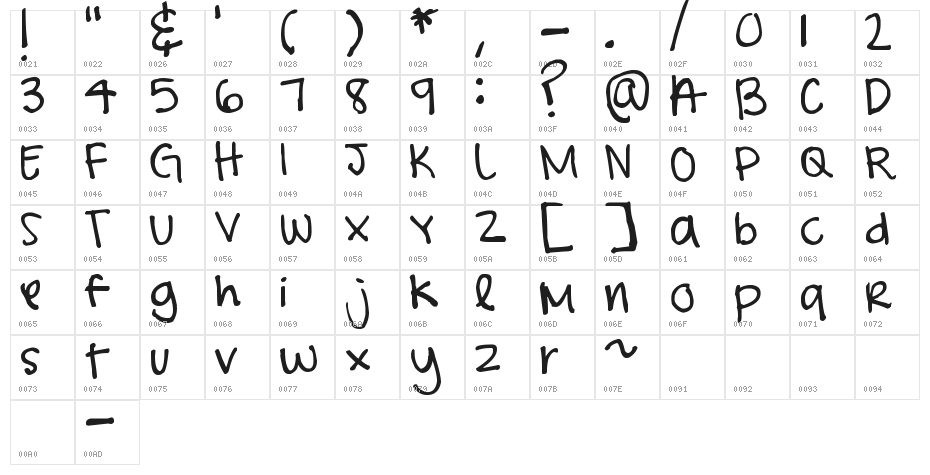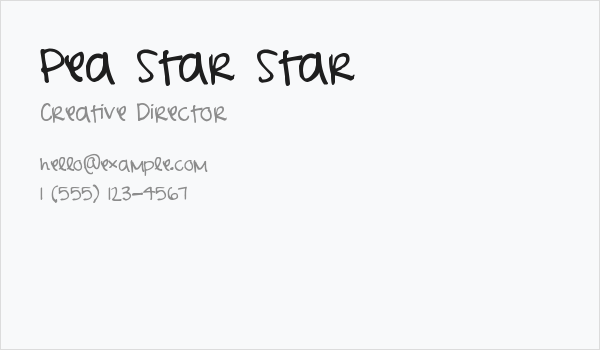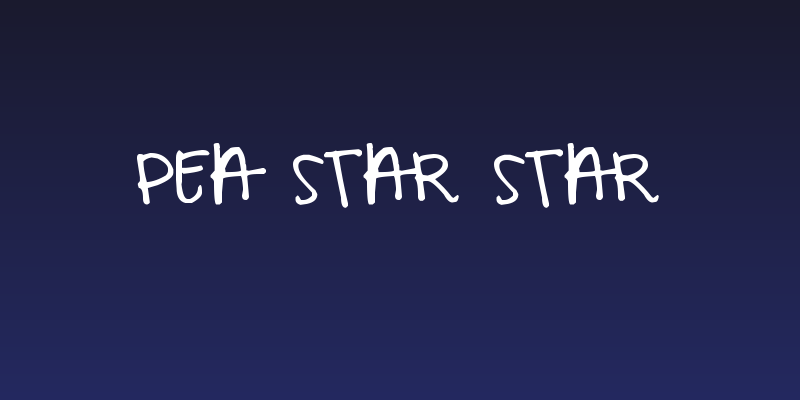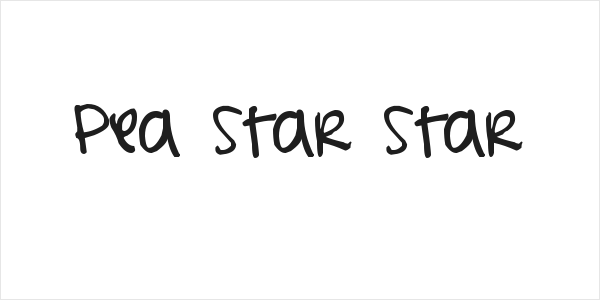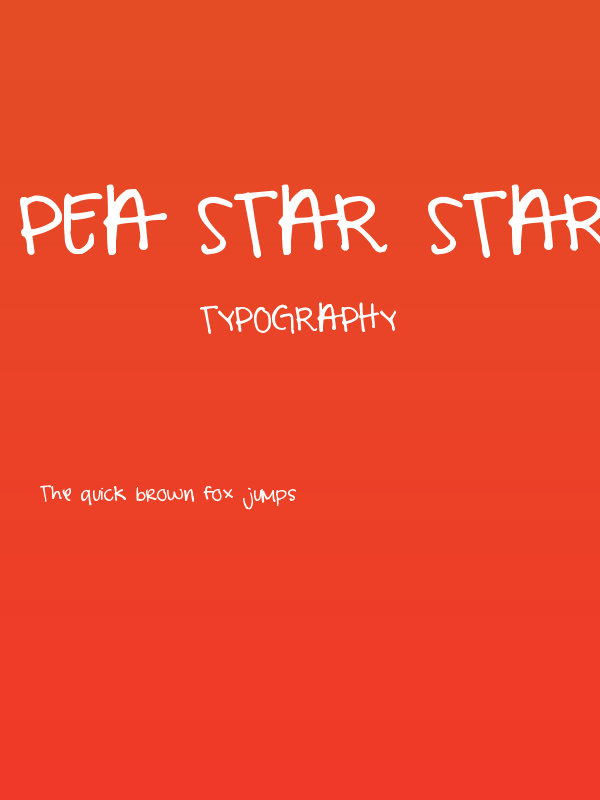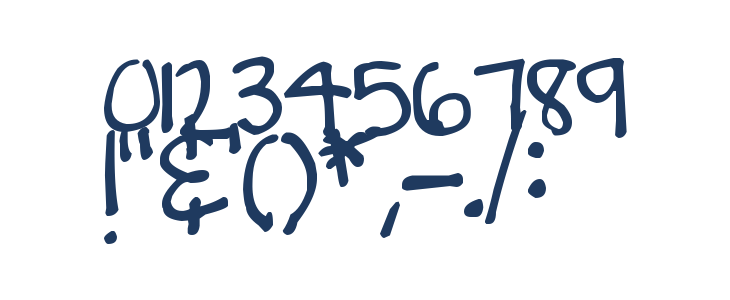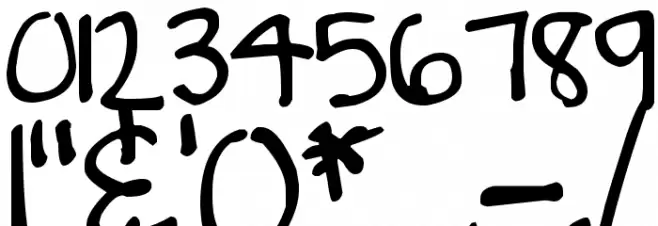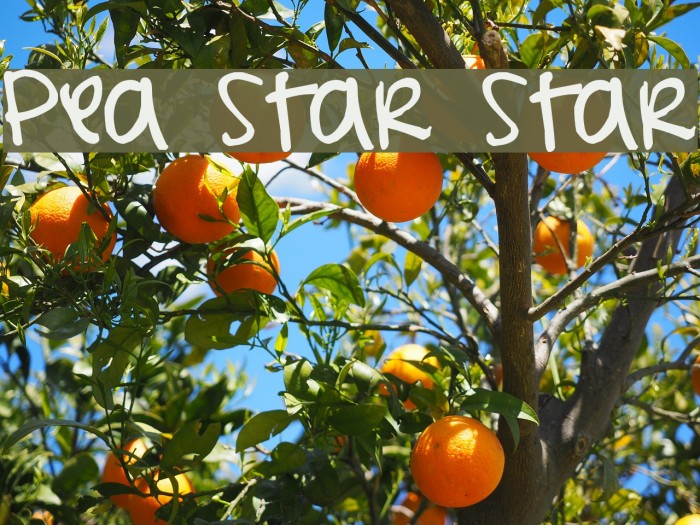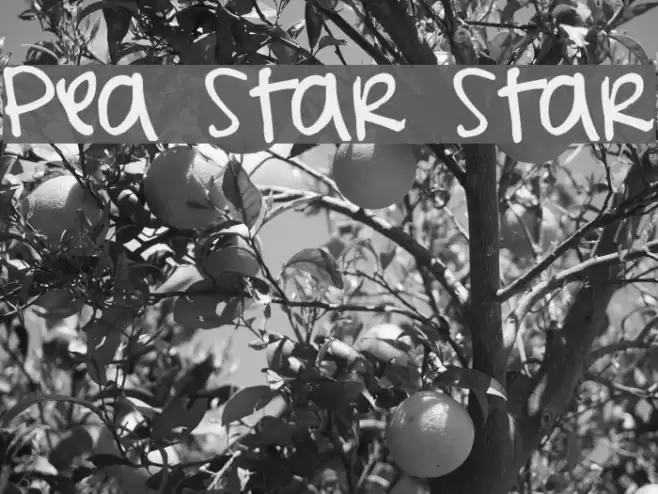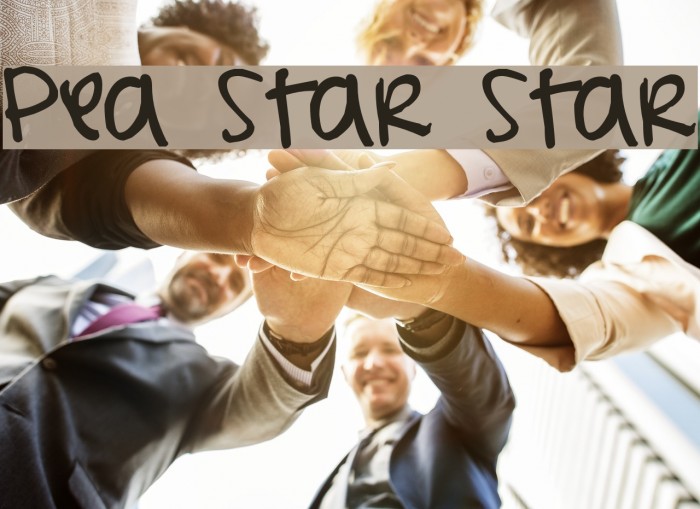
Pea Star Star Font
Pea Star Star Description
This playful and energetic font features a handwritten style with a casual, informal appearance. The characters are bold and slightly irregular, adding a sense of whimsy and personality. The strokes are thick and consistent, with rounded edges that contribute to its friendly and approachable feel. The font maintains a uniform weight throughout, ensuring readability while retaining its unique charm. It is well-suited for creative projects that require a personal touch, such as greeting cards, children's books, or playful branding. The spacing between characters is normal, allowing for easy legibility without sacrificing its distinctive style.
| Overall Style | Playful |
| Use Case | Greeting cards, Children's books, Playful branding |
| Proposed Projects | Ideal for greeting cards, children's books, playful branding, and creative projects. |